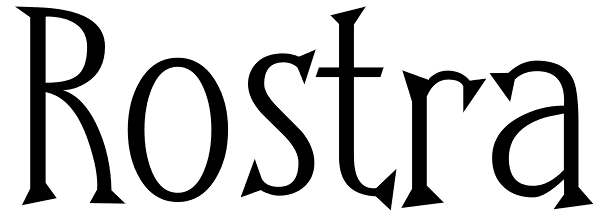
Rostra
It was during a visit to the Roman Forum that we were inspired by a seemingly unique style of lettering on a tablet among the ruins. The Latin message was chiseled in a condensed, free-style manner, almost as if it were intended as a personal note...